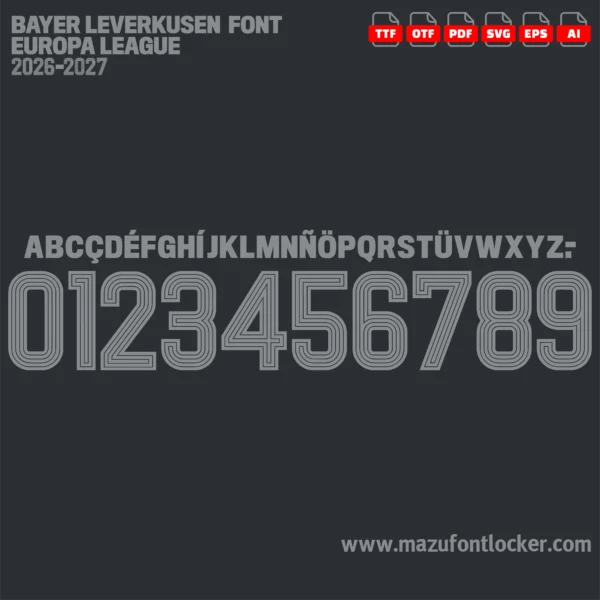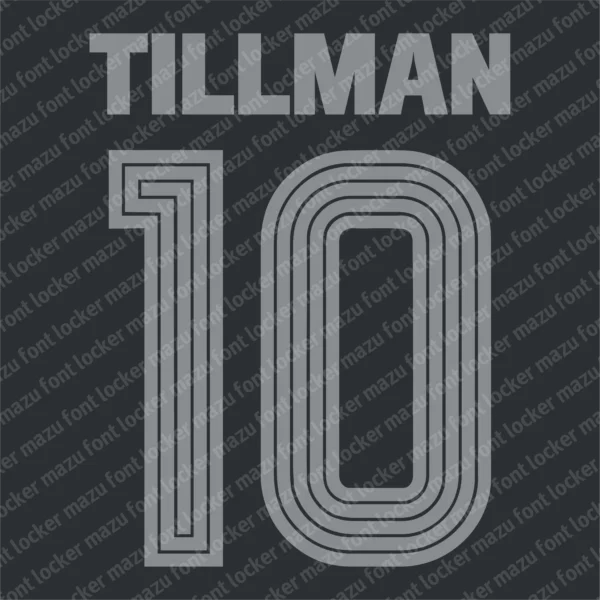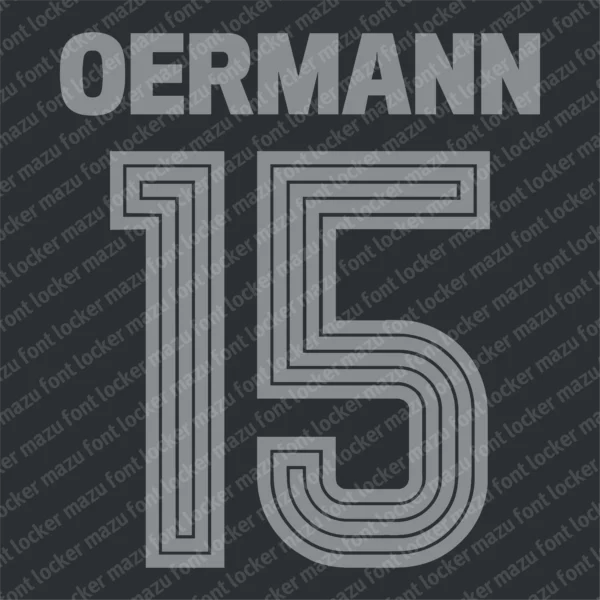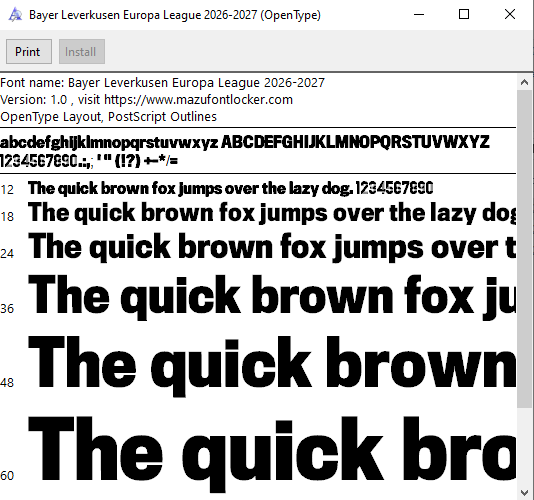
Bayer Leverkusen Europa League 2026-2027 Font Vector – Stunning Werkself Masterpiece
This font captures the commanding, precision-forged lettering inspired by Bayer Leverkusen’s iconic red-and-black identity, proud German heritage, legendary Werkself tradition, and fearless European football spirit — delivering premium authenticity and explosive match-day energy for professional jersey mockups, football graphics, sports branding, fan designs, and high-end creative projects.
Bayer Leverkusen Europa League 2026-2027 Font Vector – Stunning Werkself Typeface
The Bayer Leverkusen Europa League 2026-2027 Font Vector is a premium typeface designed to recreate the distinctive match lettering associated with Bayer 04 Leverkusen during their 2026-2027 UEFA Europa League campaign. This high-quality vector font kit captures a bold, clean, modern, and instantly recognizable football typography style inspired by the club’s iconic red and black identity.
Designed for professional designers, football enthusiasts, jersey collectors, and passionate Bayer Leverkusen supporters, the Bayer Leverkusen Europa League 2026-2027 Font Vector delivers an authentic football aesthetic for creating realistic jersey mockups, European competition artwork, football merchandise, social media graphics, match posters, squad designs, and custom fan artwork. Every character has been carefully recreated to reflect the powerful and precise visual style of Die Werkself.
This font stands out thanks to its precise vector construction and authentic club-inspired styling. Every letter and numeral has been meticulously recreated to deliver a distinctive European football lettering aesthetic inspired by Bayer Leverkusen’s 2026-2027 UEFA Europa League campaign.
Whether you’re producing professional football kit templates, custom jersey concepts, European competition graphics, or eye-catching football content, the Bayer Leverkusen Europa League 2026-2027 Font Vector delivers a genuine match-ready appearance inspired by the identity of Die Werkself.
The lettering featured in the Bayer Leverkusen Europa League 2026-2027 Font Vector combines clean geometric lines with bold modern proportions. The result is a premium and highly readable typeface that reflects Bayer Leverkusen’s proud football heritage, iconic red and black identity, German football tradition, European ambitions, and passionate global fanbase.
The numerals feature balanced curves, sharp edges, and consistent spacing for maximum readability on football jerseys and digital media. Built entirely as scalable vectors, every number remains crisp and clear for jersey customization, posters, banners, print projects, social media graphics, and high-resolution European football artwork.
Bayer Leverkusen Europa League 2026-2027 Season
The 2026-2027 season represents another exciting chapter for Bayer 04 Leverkusen as the German club competes in UEFA’s European competition. The club enters the new campaign with ambitions of competing at the highest level while continuing its strong football tradition in Germany and across Europe.
The Bayer Leverkusen Europa League 2026-2027 Font Vector is inspired by the distinctive football typography and visual identity associated with the club’s European campaign, making it an excellent choice for designers creating custom jersey concepts, Europa League posters, squad graphics, matchday artwork, and fan-made football projects.